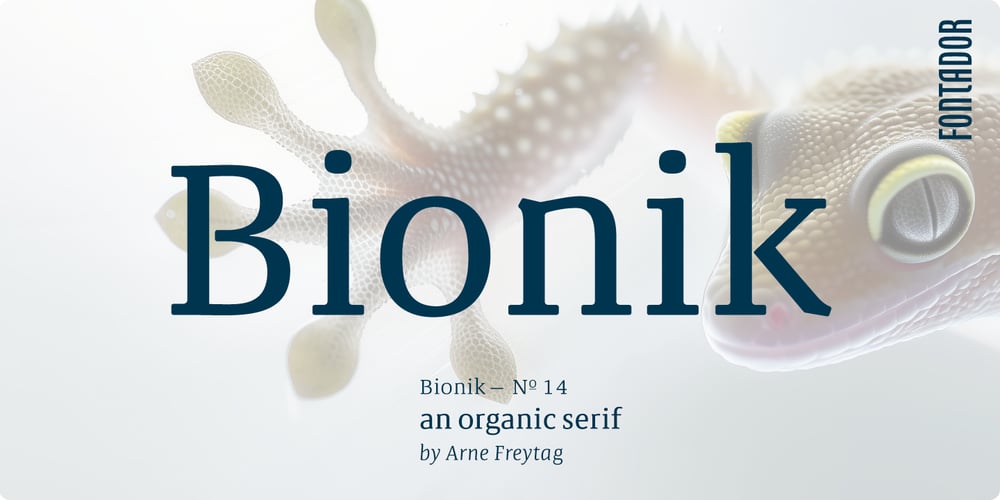
Bionik
Bionik font
Bionik Font Family was designed by Arne Freytag and published by Fontador. Bionik contains 12 styles and family package options. Bionik is a squarish serif, especially designed for contemporary typography on print and screen. The super ellipse-based forms and high x-height allow large and open letterforms, perfectly adapted to the pixel grid on screen. With light rounded corners Bionik provides a soft and friendly atmosphere. The font contains 6 weights from ExtraLight to ExtraBold plus true italics. 944 glyphs include 218 ligatures, small caps, tabular, old style, fractions …, and a wide range of flexibility for latin language support for every typographical needs. Bionik is a contemporary serif typeface, special for logotypes, brands, magazines and editorial.